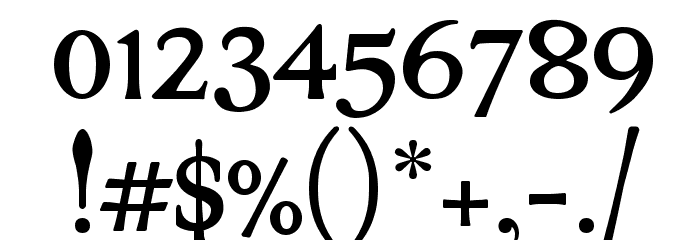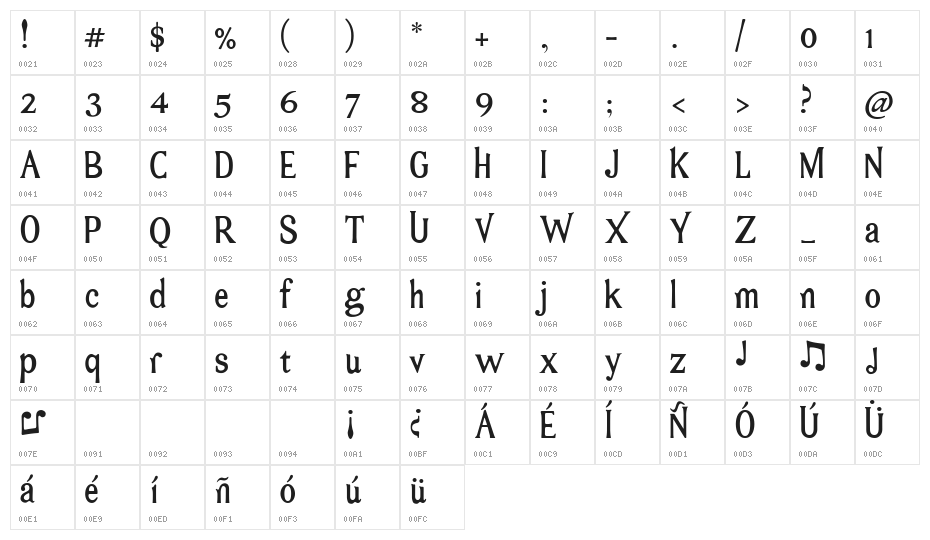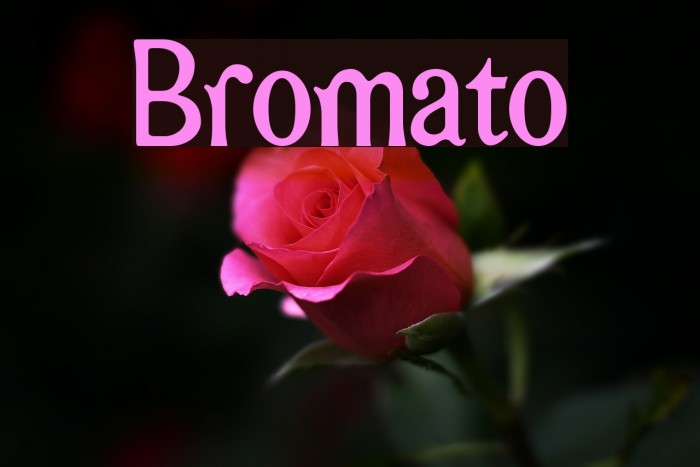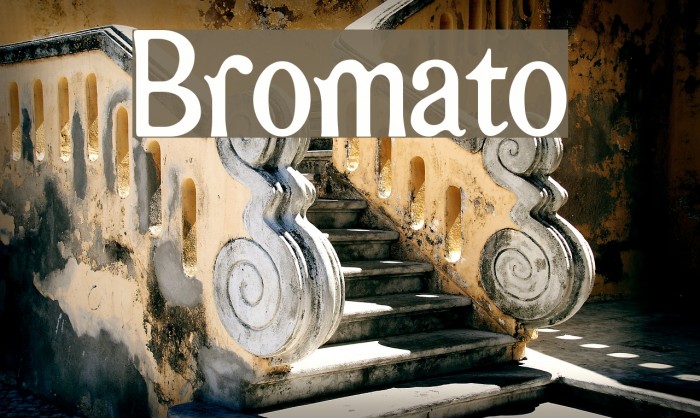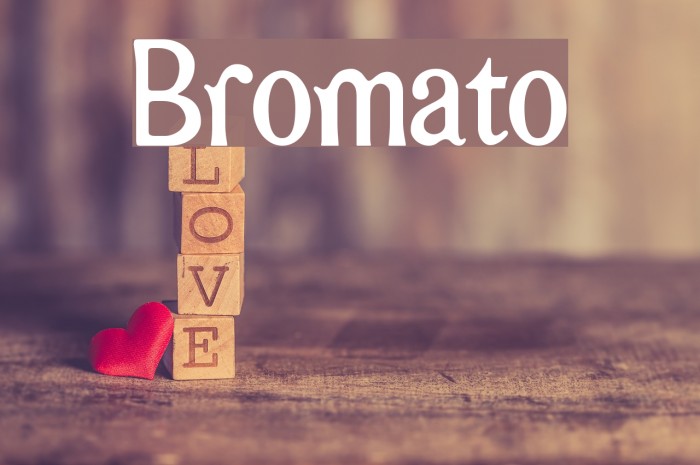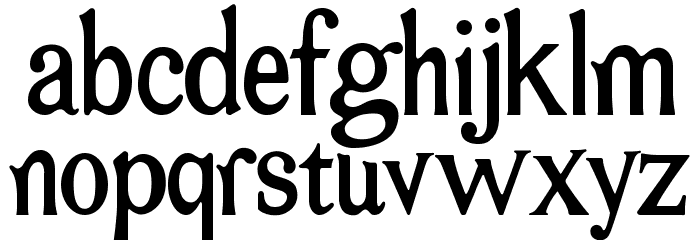
Bromato Font
Bromato Description
This font features a playful and bold design with a unique blend of curves and sharp edges. The uppercase letters are tall and slightly condensed, giving a sense of elegance and sophistication. The lowercase letters maintain a consistent style with rounded forms and a whimsical touch, making them stand out. The numerals are distinct and easy to read, with a slightly exaggerated style that adds character. Special characters are well-integrated, maintaining the overall aesthetic. The font's design is both modern and classic, making it versatile for various applications.
Proposed ProjectsIdeal for branding, packaging, posters, and creative projects that require a distinctive and engaging typeface.